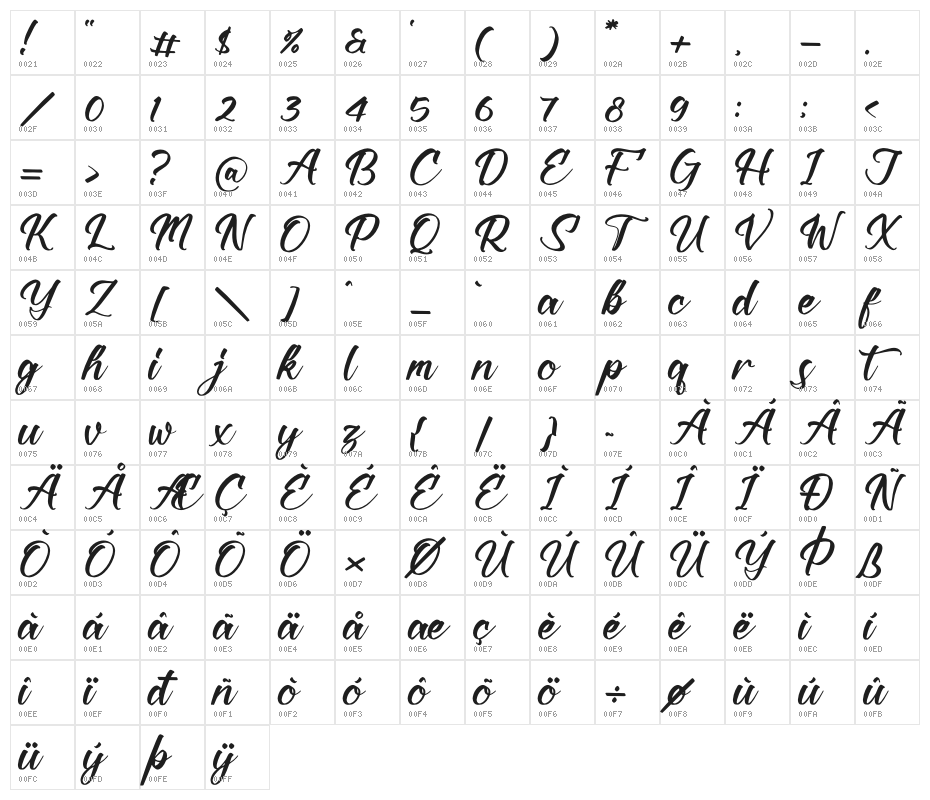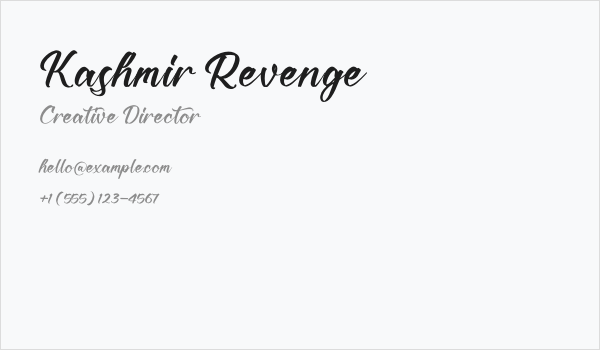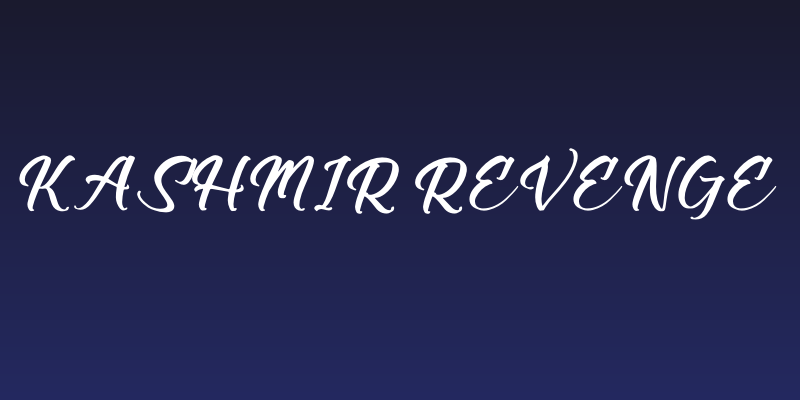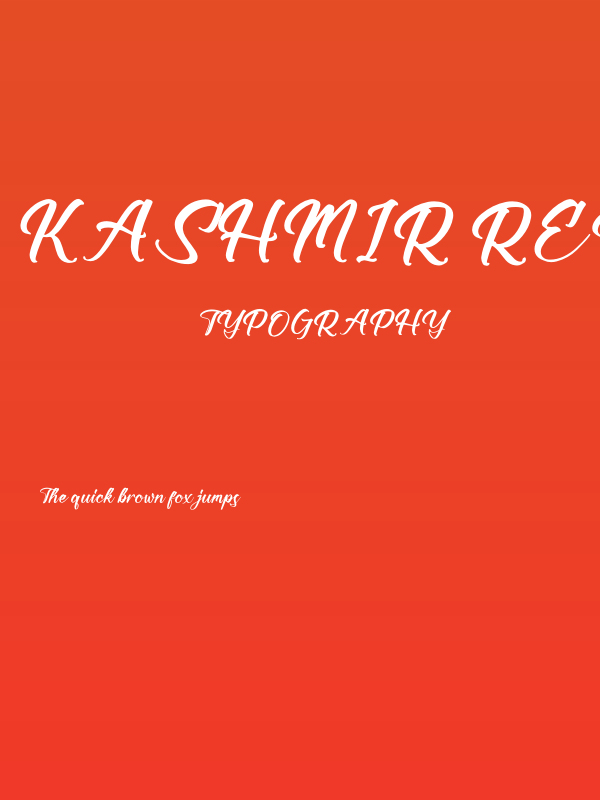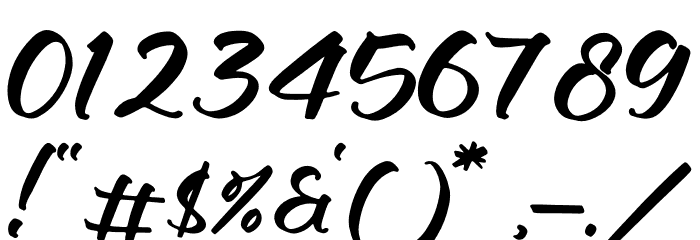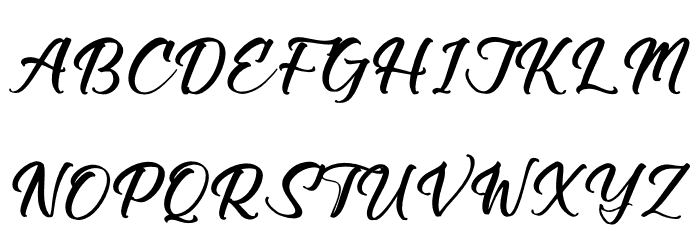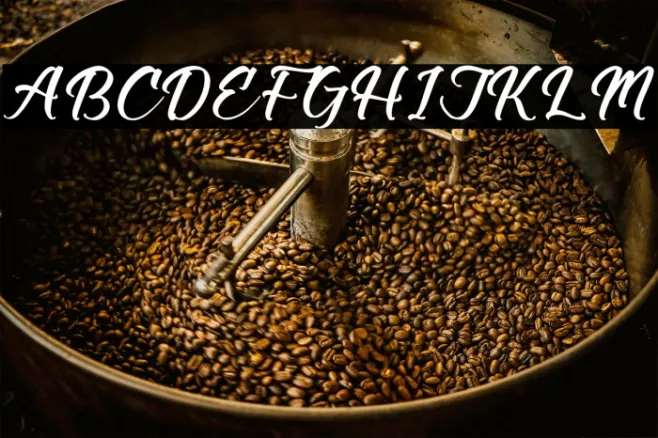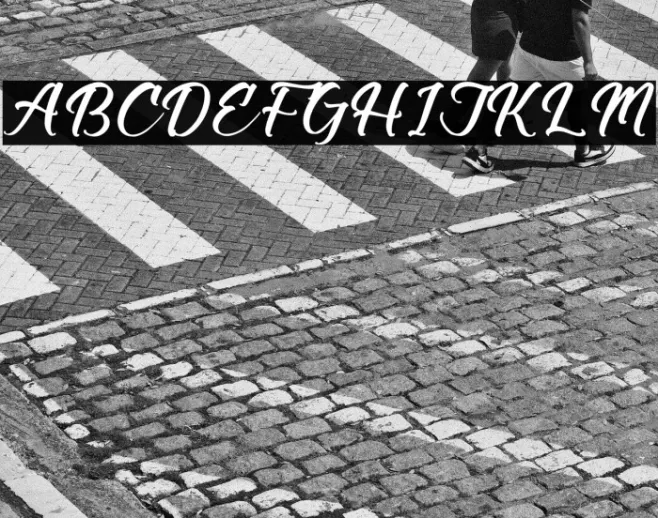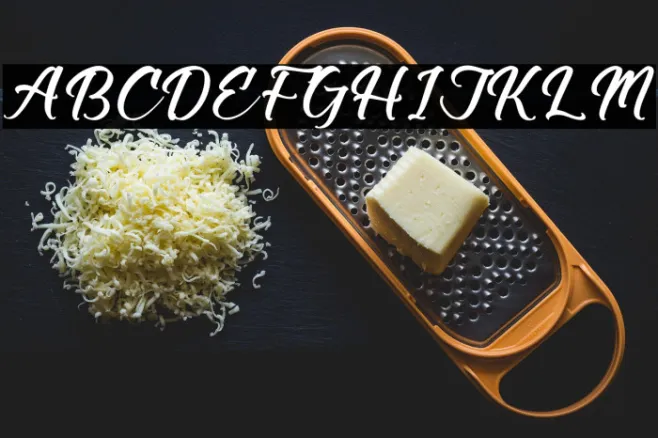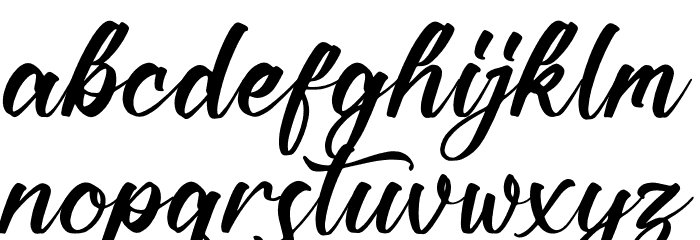
Kashmir Revenge Font
Kashmir Revenge Description
This font exhibits a dynamic and flowing script style, characterized by its elegant and cursive letterforms. The uppercase letters are slightly slanted, with smooth curves and a consistent stroke width that adds a sense of fluidity and grace. The lowercase letters maintain a harmonious connection, enhancing the script's cohesive appearance. Numbers and special characters follow the same stylistic approach, ensuring uniformity across all glyphs. The overall design is both sophisticated and approachable, making it suitable for a variety of creative applications.